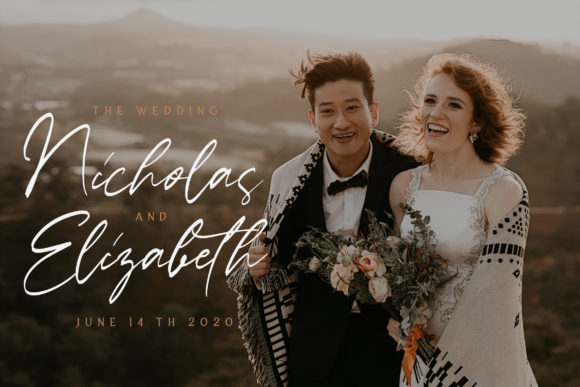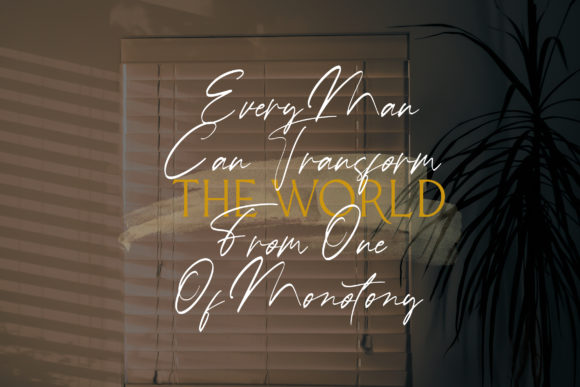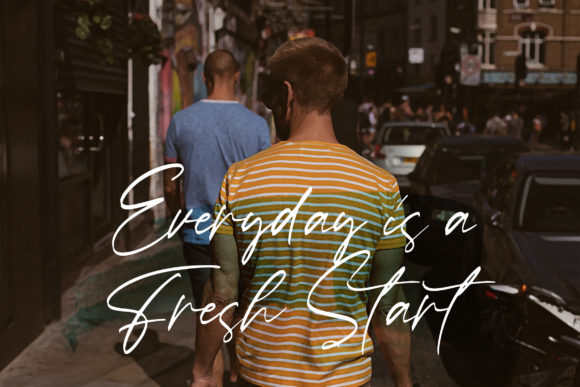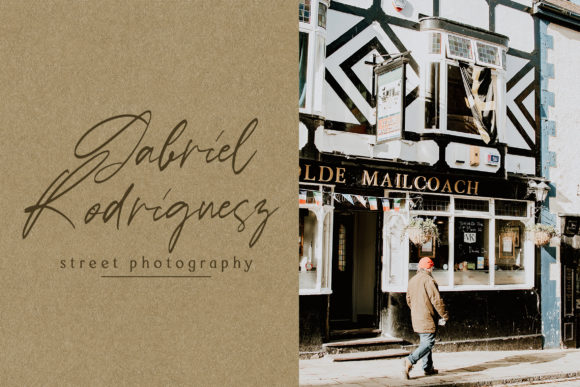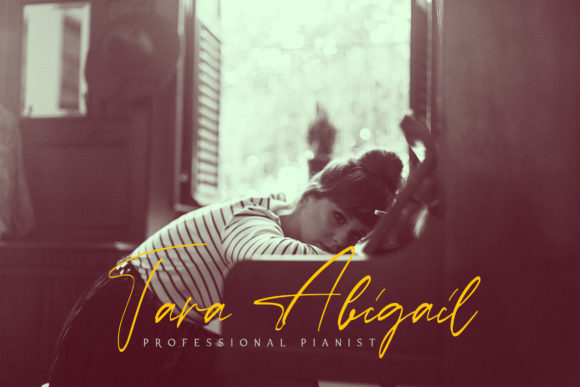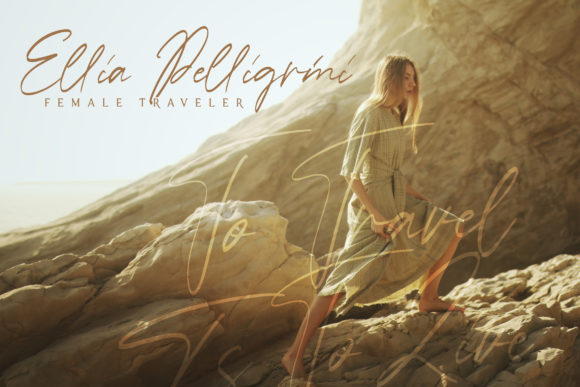
The Perfect Font for Whimsical Designs
Do you remember that moment when you stumbled upon the perfect font to bring your creative vision to life? The feeling of excitement and joy is unmatched, and it’s exactly what you’ll experience when you discover the enchanting Ballerina Font. This unique, soft hand-lettered script font is a treasure trove of classic elegance and friendly charm, making it the perfect addition to any design project.
Whether you’re a seasoned designer or a budding artist, Ballerina Font is a valuable asset that will help you create original and outstanding designs. Its versatility and timeless appeal make it an ideal choice for a wide range of applications, from branding and advertising to digital art and editorial content.
Ballerina Font Key Features
- Font Family: Ballerina
- Unique Characteristic: Elegant, flowing script style with a touch of whimsy, ideal for creative and artistic designs
- Font Weight: 400 (Regular), 700 (Bold), 800 (Black)
Ballerina Font Review
The Ballerina Font is a beautiful, elegant script font that can add a touch of sophistication to any design. ✨ One of its strongest points is its versatility – it can be used for a variety of projects, from wedding invitations to branding materials.
The font’s flowing lines and subtle curves create a sense of movement and fluidity, making it perfect for designs that require a sense of whimsy and playfulness. ✨ Additionally, the font is highly legible, even at smaller sizes, which is a major advantage for designers who need to ensure their text is easily readable.
- ⚠️ Limited font weight options – the font only comes in a few weights, which may limit its use in certain design projects where more font weights are required.
- ⚠️ May not be suitable for headlines or titles – while the font is beautiful, its flowing lines and subtle curves may make it difficult to use for bold, attention-grabbing headlines.
Overall, the Ballerina Font is a beautiful and versatile script font that can add a touch of elegance to any design. While it may have some limitations, it is definitely worth considering for designers who want to create a sophisticated and refined look.
Tips: Use Ballerina Font for creating elegant and feminine designs, such as wedding invitations, baby shower invitations, or fashion designs.
Tips: Use Ballerina Font for creating intricate and detailed designs, such as custom typography, logos, or graphics.
Tips: Use Ballerina Font for creating elegant and professional presentations, reports, or documents.
Ballerina Font is suitable for various design projects, including:
- Wedding and event invitations
- Baby shower and nursery designs
- Fashion and beauty designs
- Custom typography and logos
- Professional presentations and reports
Alternatives to Ballerina Font
Great Vibes is a modern, elegant script font that is perfect for creating a sophisticated and luxurious feel. It’s ideal for use in wedding invitations, luxury brand logos, and high-end packaging. Great Vibes has a similar flowing feel to Ballerina Font, but with a more refined and polished appearance.
Pacifico is a beautiful, cursive font that is reminiscent of the classic scripts of the past. It’s perfect for use in designs that require a touch of elegance and sophistication, such as restaurant menus, wedding invitations, and magazine articles. Pacifico has a similar relaxed feel to Ballerina Font, but with a more subtle and understated appearance.
Carolyna Pro is a stylish, elegant script font that is perfect for use in high-end designs. It’s ideal for creating a luxurious and sophisticated feel, making it perfect for use in fashion brands, luxury packaging, and high-end magazines. Carolyna Pro has a similar flowing feel to Ballerina Font, but with a more refined and polished appearance.
Dancing Script is a beautiful, elegant script font that is perfect for use in designs that require a touch of sophistication and elegance. It’s ideal for use in wedding invitations, luxury brand logos, and high-end packaging. Dancing Script has a similar flowing feel to Ballerina Font, but with a more dynamic and playful appearance.